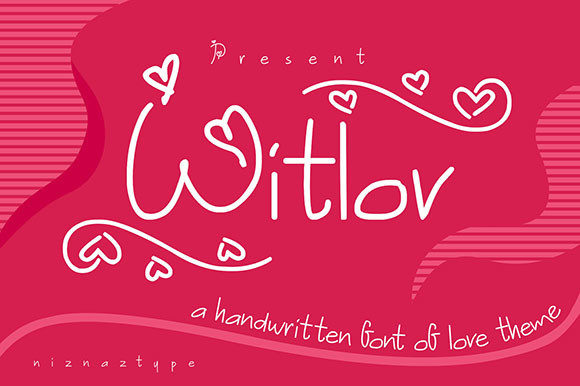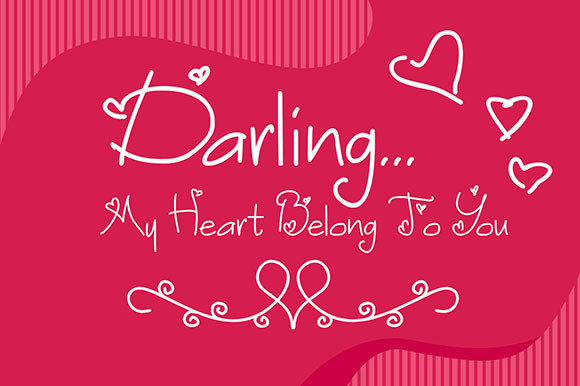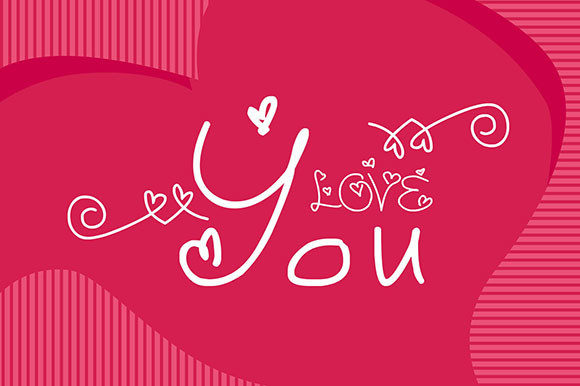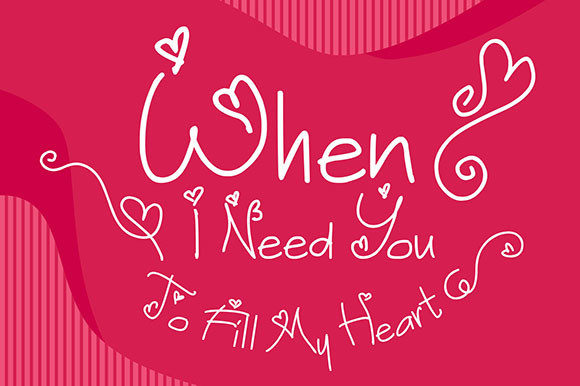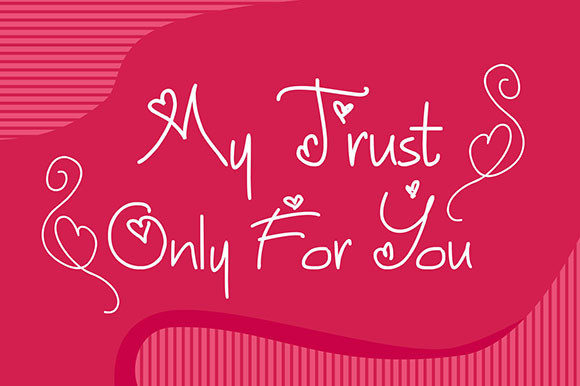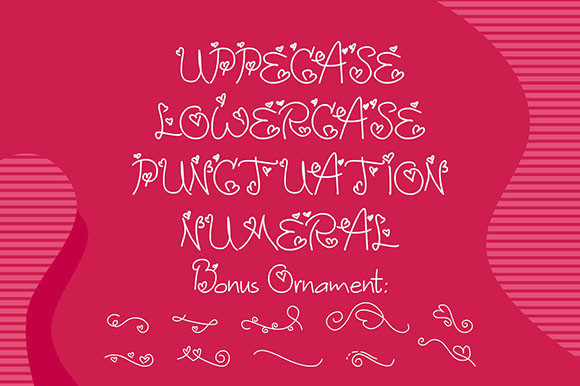
Witlov Font
About Witlov Font
“Witlov” is a slim and delicate script font that exudes elegance and sophistication. This font is meticulously designed, making it a perfect choice for a variety of applications such as product packaging, branding projects, magazine covers, social media graphics, wedding invitations, and more. Its slim and delicate nature adds a touch of refinement and style to any creative endeavor.
The slender strokes of “Witlov” contribute to its overall delicacy, creating a graceful and upscale appearance. Whether you’re aiming for a high-end brand aesthetic or designing for special occasions like weddings, this font enhances the visual appeal with its slim and elegant script.
This font is particularly well-suited for product packaging, where its delicate script can elevate the presentation of various products, adding a touch of sophistication to the overall branding. In branding projects, “Witlov” can be used to create logos and visual identities that communicate a sense of style and luxury.
For magazine covers and social media graphics, “Witlov” brings a refined and modern flair. Its slim and delicate script effortlessly expresses words above the background, ensuring a harmonious and visually pleasing design.
In summary, “Witlov” is a font that goes beyond its slim and delicate appearance; it becomes a tool for adding a touch of elegance and sophistication to your creative projects. Whether used for product packaging, branding, or various design applications, this font is a versatile choice for expressing words with style and refinement.